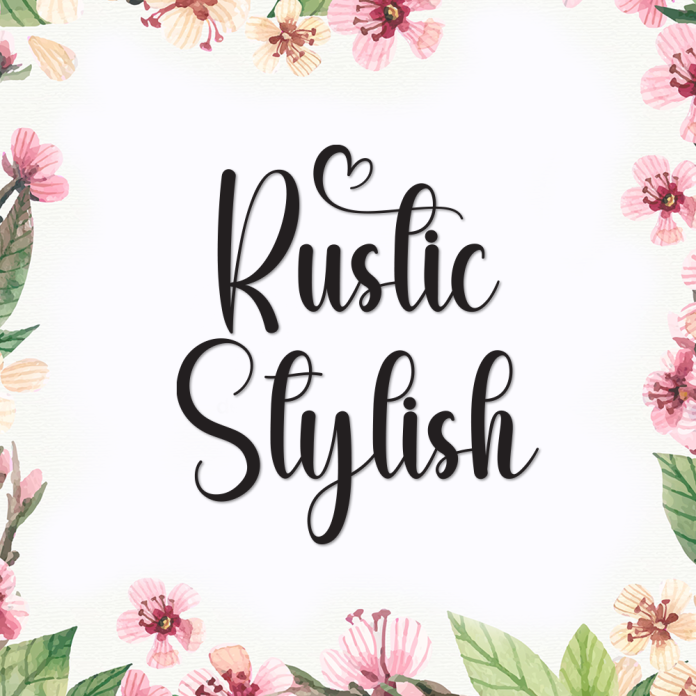
Rustic Stylish is a beautifully handcrafted handwriting font that blends rustic warmth with modern sophistication. Its flowing strokes and natural brush details give your designs a heartfelt, organic look—perfect for projects that aim to be both personal and stylish.
This font is ideal for wedding invitations, farmhouse signs, branding, product packaging, Instagram quotes, logos, and more.
Elegant handwritten style with rustic flair
Smooth, flowing letterforms with a natural feel
Great for rustic, boho, or vintage-themed designs
Bring a touch of rustic beauty and handwritten elegance to your creations with Rustic Stylish.